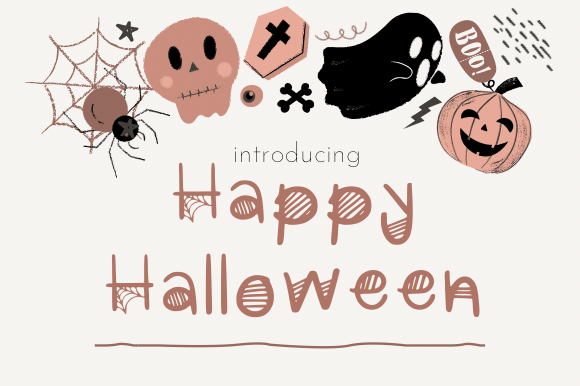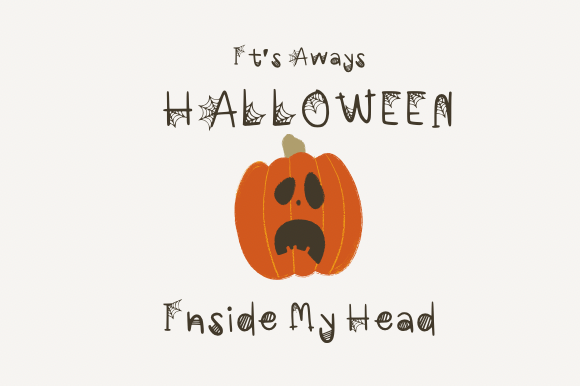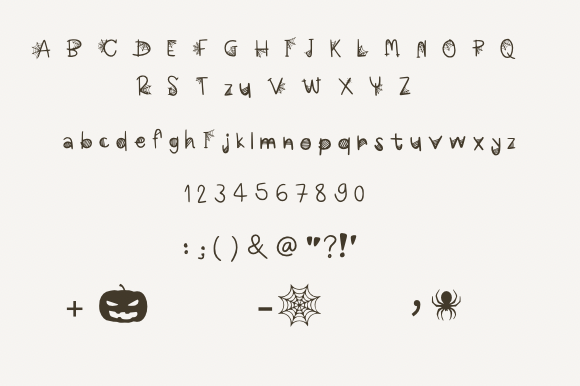
Spider Web Font
About Spider Web Font
**Enhance Your Designs with the “Spider Web” Handwriting Font**
Elevate your creative projects with the charming “Spider Web” handwriting font. This font’s unique and quirky character will add a delightful touch to your designs. Here’s how “Spider Web” can enhance your creative work:
1. **Playful and Whimsical:** “Spider Web” exudes a playful and whimsical vibe that makes it perfect for a variety of design projects. Its quirky charm is sure to capture attention.
2. **Versatile Application:** Whether you’re working on branding, greeting cards, posters, invitations, or social media graphics, “Spider Web” adapts seamlessly to different design needs.
3. **Unique Character Design:** The font’s well-balanced characters are carefully crafted to maintain a harmonious and visually appealing appearance. Each letter adds a distinct and charming element to your text.
4. **Engaging Headers:** Use “Spider Web” for headers and titles to create engaging and eye-catching typography. Its unique style adds personality and flair to your headings.
5. **Brand Identity:** If your brand or project aims to stand out with a playful and unconventional identity, “Spider Web” can be a valuable asset in crafting a memorable image.
6. **Greeting Cards:** Design charming and memorable greeting cards for various occasions, from birthdays to holidays. “Spider Web” adds a touch of whimsy and fun to your heartfelt messages.
7. **Posters and Flyers:** Create attention-grabbing posters and flyers that make a statement. “Spider Web” brings a sense of lightheartedness and creativity to promotional materials.
8. **Invitations:** Craft unique and memorable invitations for events and celebrations. The font’s playful nature sets the tone for a fun and enjoyable gathering.
9. **Social Media Graphics:** Make your social media posts pop with personality. “Spider Web” can help you create shareable and engaging content that resonates with your audience.
10. **Children’s Projects:** Consider “Spider Web” for children’s books, educational materials, or any project aimed at kids. Its fun and friendly appearance appeals to young audiences.
“Spider Web” is a font that adds character and charm to your designs. Its playful nature invites creativity and imagination, making it a valuable asset for designers looking to infuse a sense of whimsy into their work. Whether you want to create a memorable brand identity, eye-catching posters, or delightful greeting cards, “Spider Web” is here to enhance your creative endeavors.